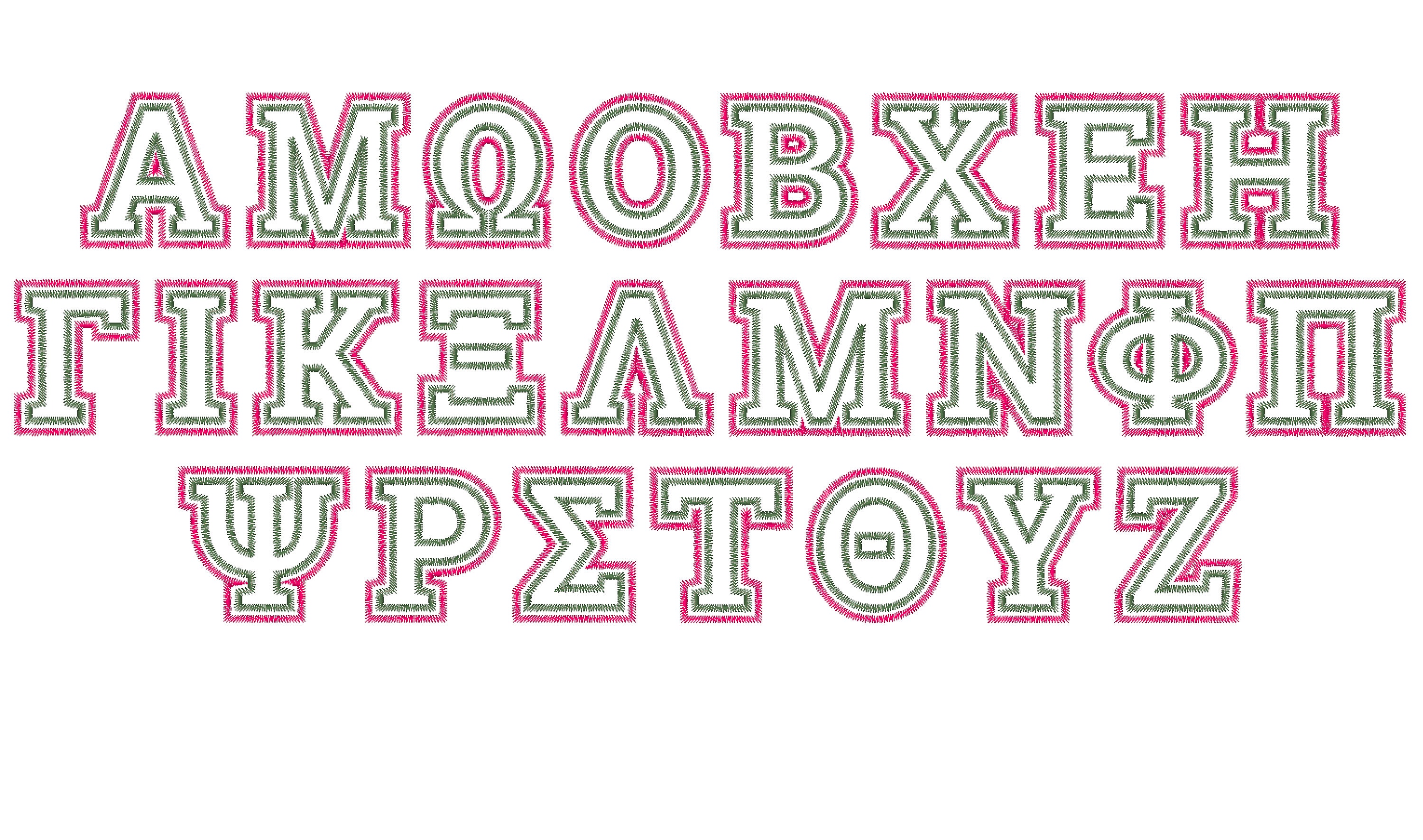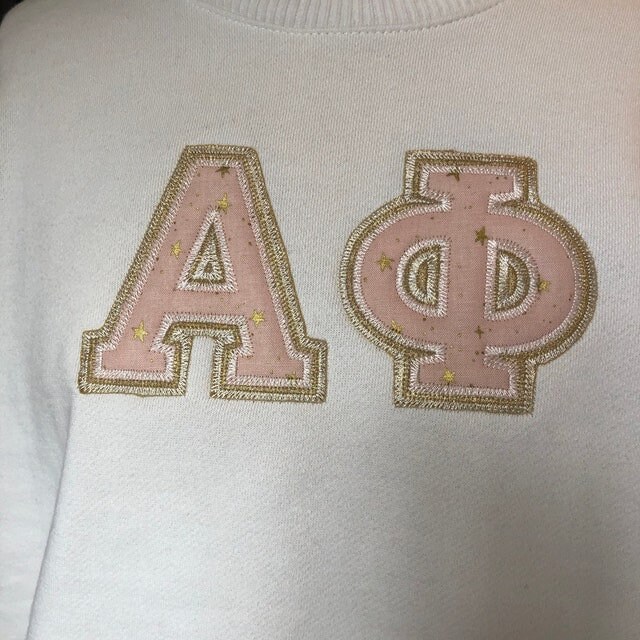
Greek FONT double appliqué 2 layers 2 colors Greek Alphabet theta alpha omega ZIG-ZAG outline sororities Monogram machine embroidery designs
Letters are 2 step applique with ZIG-ZAG applique finish